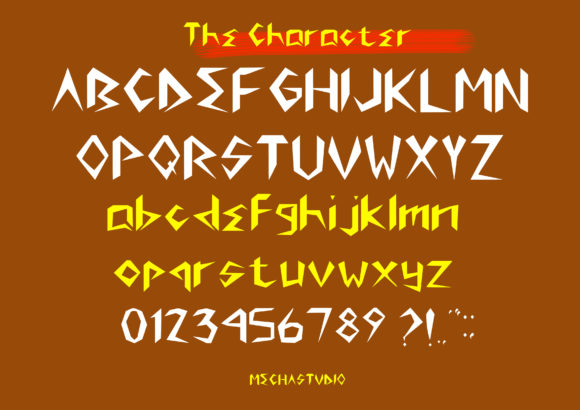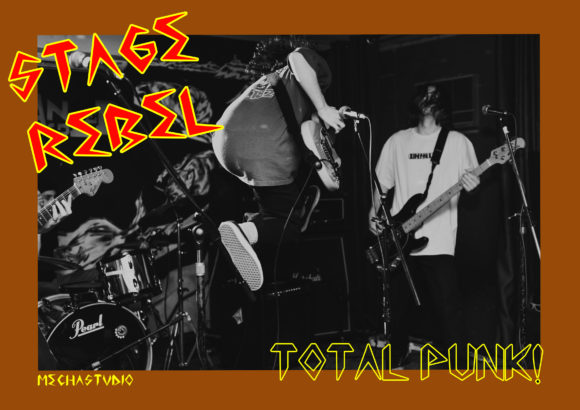
Introduction to Origamblitz Font
You know that moment when you’re working on a creative project, and you just need the perfect font to bring it all together? It’s like the missing puzzle piece that elevates your design from good to great. For me, that moment came when I stumbled upon the Origamblitz Font. Its modern and aggressive look is like a breath of fresh air, adding an edgy touch to any project.
Whether you’re designing a horror movie poster, creating a t-shirt for a music festival, or working on a digital art project, Origamblitz Font is the perfect addition. With its high-quality design, it’s no wonder why designers are raving about this font. The best part? It’s available for free download, making it a valuable resource for any creative project.
So, what makes Origamblitz Font so special? Its unique design allows for a transparent background, giving you the flexibility to use it with any image or background. As a design resource, it’s a must-have for anyone looking to add a touch of sophistication and style to their work.
Key Features of Origamblitz Font
- High-quality, unique font design perfect for creative projects and design resources.
- Includes transparent background option for seamless integration into various design projects.
- Supports a wide range of languages, making it a versatile design resource for global creative projects.
- Features a high-resolution design, perfect for printing and digital applications at 300 DPI resolution.
- Unique and modern design style, ideal for modern and futuristic-themed creative projects.
Honest Review: Origamblitz Font
Here are some things that work well: ✨
- Unique aesthetic: The Origamblitz Font has a distinctive style that’s perfect for creative projects where you want to stand out.
- Transparency options: The font allows for transparent backgrounds, making it easy to integrate into complex designs.
- High-quality glyphs: The font’s glyphs are crisp and well-designed, making it a pleasure to work with.
However, there are a few limitations: ⚠️
- Limited language support: The font only supports a limited number of languages, which might be a concern for designers working on multilingual projects.
- No bold or italic variations: While the font’s regular weight is beautiful, I wish it came with bold and italic variations for added flexibility.
Overall, I’m impressed with the Origamblitz Font. It’s a great design resource for creative projects, and its free download makes it accessible to designers of all levels. With a little creativity, the limitations can be worked around, and the font can be a valuable addition to your design toolkit.
Tips for Getting the Most Out of the Origamblitz Font
To get the most out of the Origamblitz Font, consider the following tips:
- Use the font on a transparent background for a clean and modern look.
- Experiment with different font sizes and styles to add visual interest to your design.
- Combine the Origamblitz Font with other design resources, such as graphics and images, to create a cohesive look.
Common Use Cases for the Origamblitz Font
The Origamblitz Font is ideal for a range of creative projects, including:
- Business cards and marketing materials.
- Wedding invitations and event materials.
- Graphic novels and comics.
Can I use the Origamblitz Font with a transparent background?
Yes, the Origamblitz Font has a transparent background, making it perfect for designing with a clear or textured background. This feature allows for a seamless integration with your design, giving it a professional and polished look.